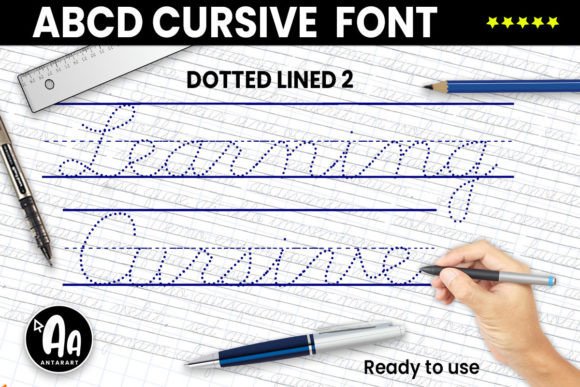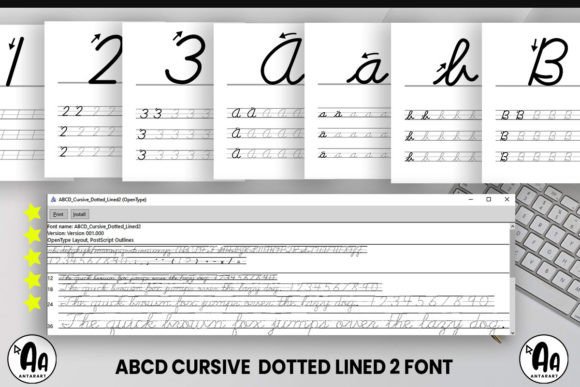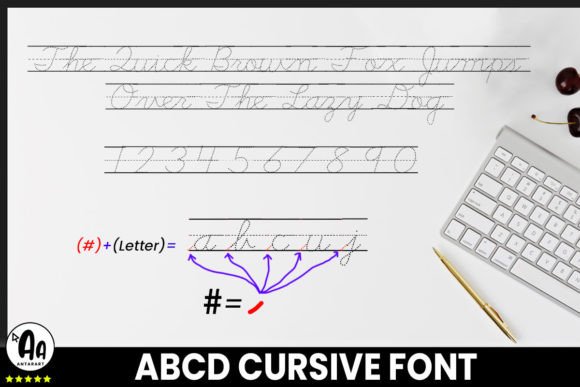
Abcd Cursive Dotted Lined2 Font
About the Abcd Cursive Dotted Lined2 Font
Step up your design game with Abcd Cursive Dotted Lined2 Font, a font that exudes confidence and style. Abcd Cursive Dotted Lined2 (Ruled) Font
This handwritten font helps you create thousands of worksheets using any software. It is a great learning resource for those who want to learn or teach Cursive handwriting enjoyably and interactively.
This font’s playful, slightly whimsical style is ideal for children’s books, educational materials, invitations, and branding for businesses targeting a younger demographic. It works exceptionally well in headlines, short text blocks, and decorative elements. Avoid using it for large bodies of text or UI elements where legibility is paramount; the dotted lines may hinder readability in continuous paragraphs.
Pair Abcd Cursive Dotted Lined2 with a clean sans-serif like Open Sans for a balanced contrast, or a playful, rounded sans-serif such as Bubblegum Sans for a more cohesive, youthful feel. For a more sophisticated look, consider pairing it with a classic serif font like Garamond for a touch of elegance.
The font’s overall personality is best described as friendly and approachable, making it suitable for projects that require a lighthearted and engaging tone. Its informal nature is not appropriate for serious or formal contexts.